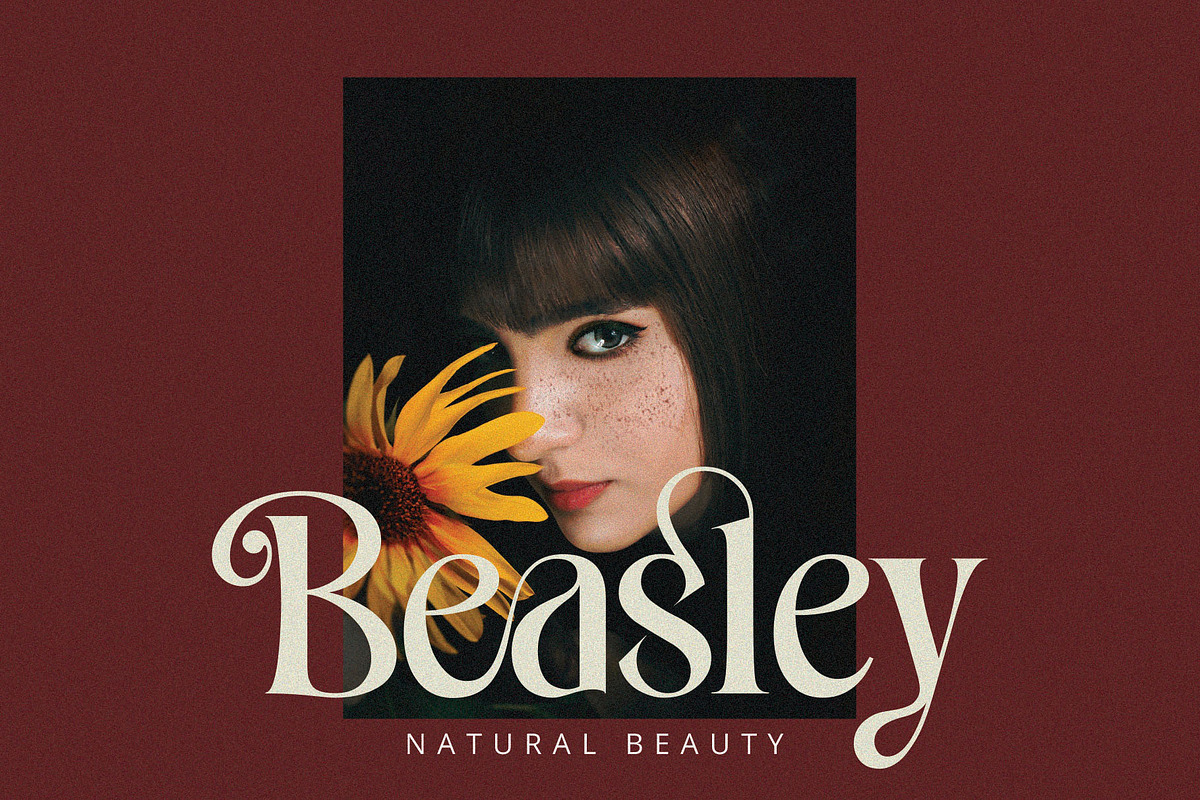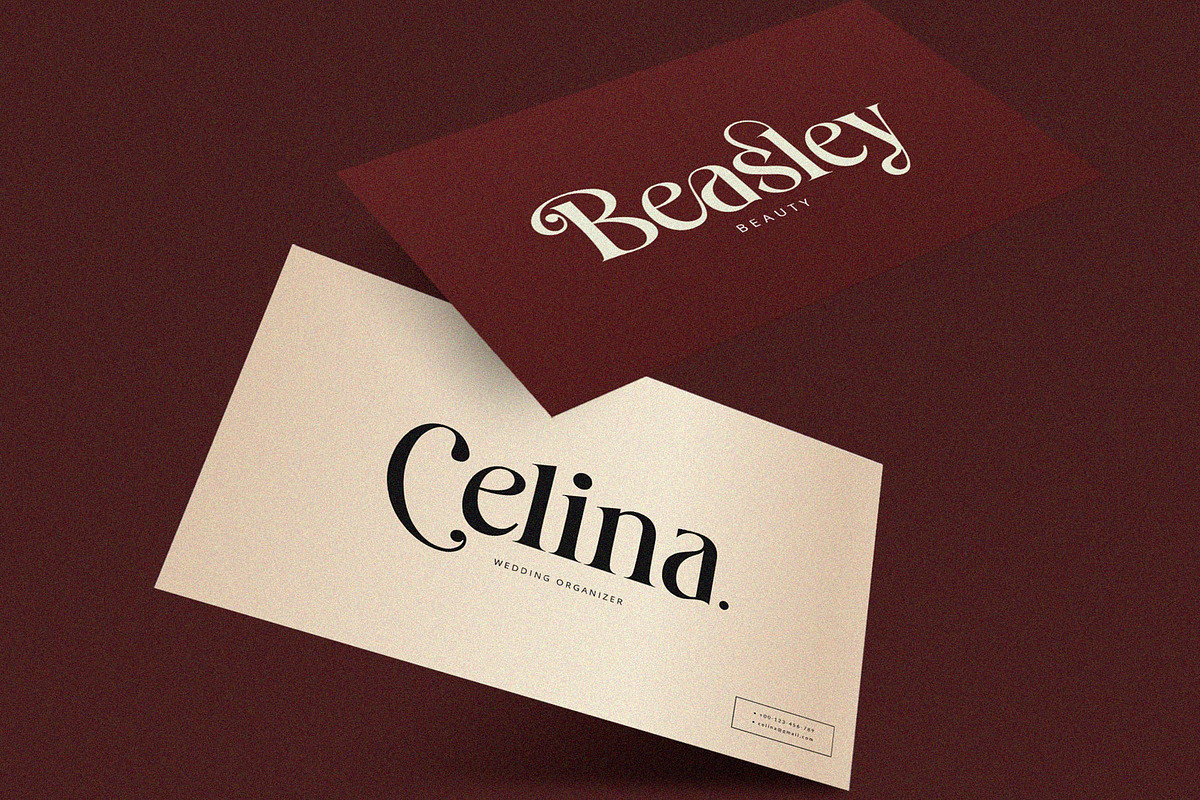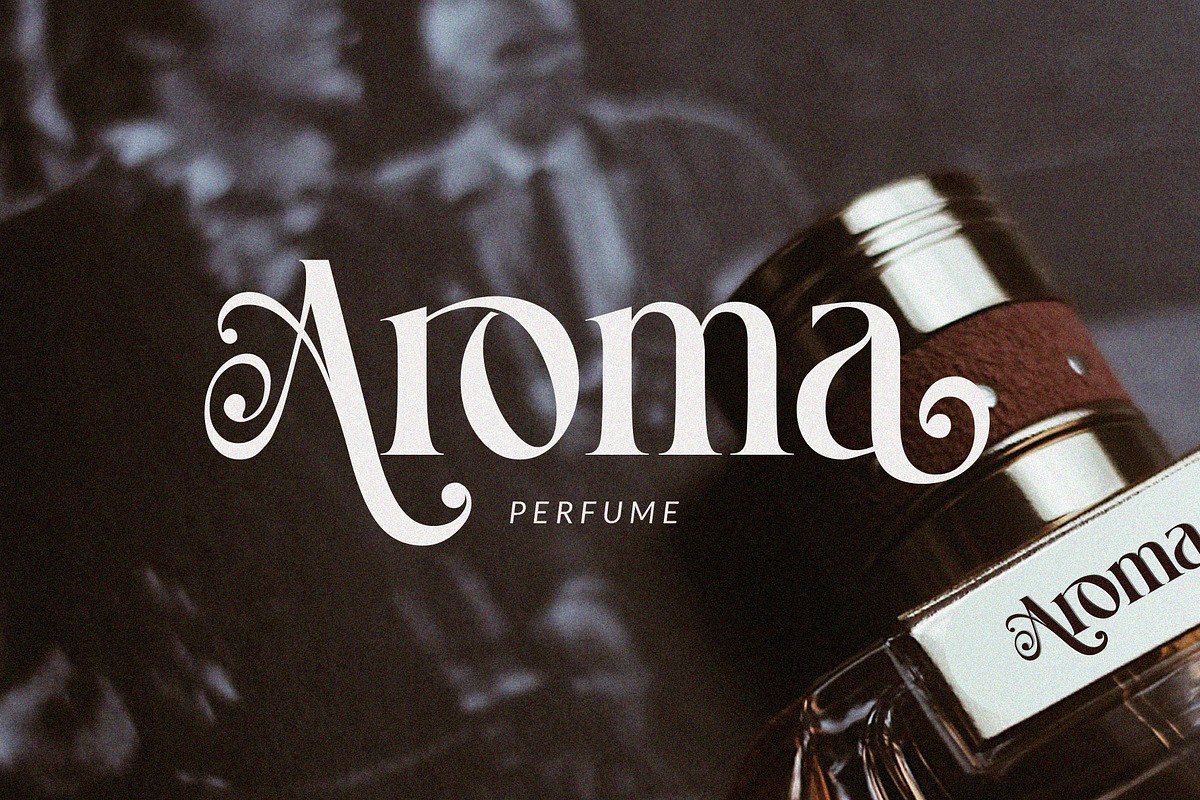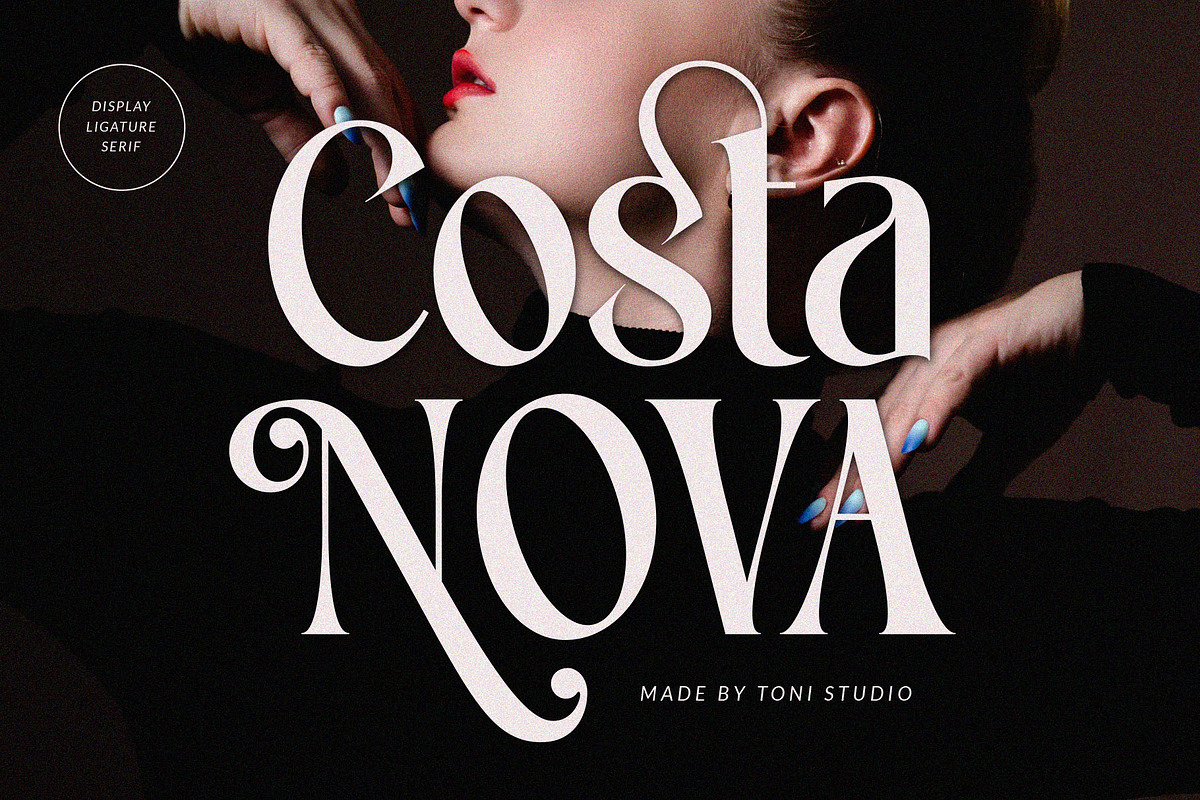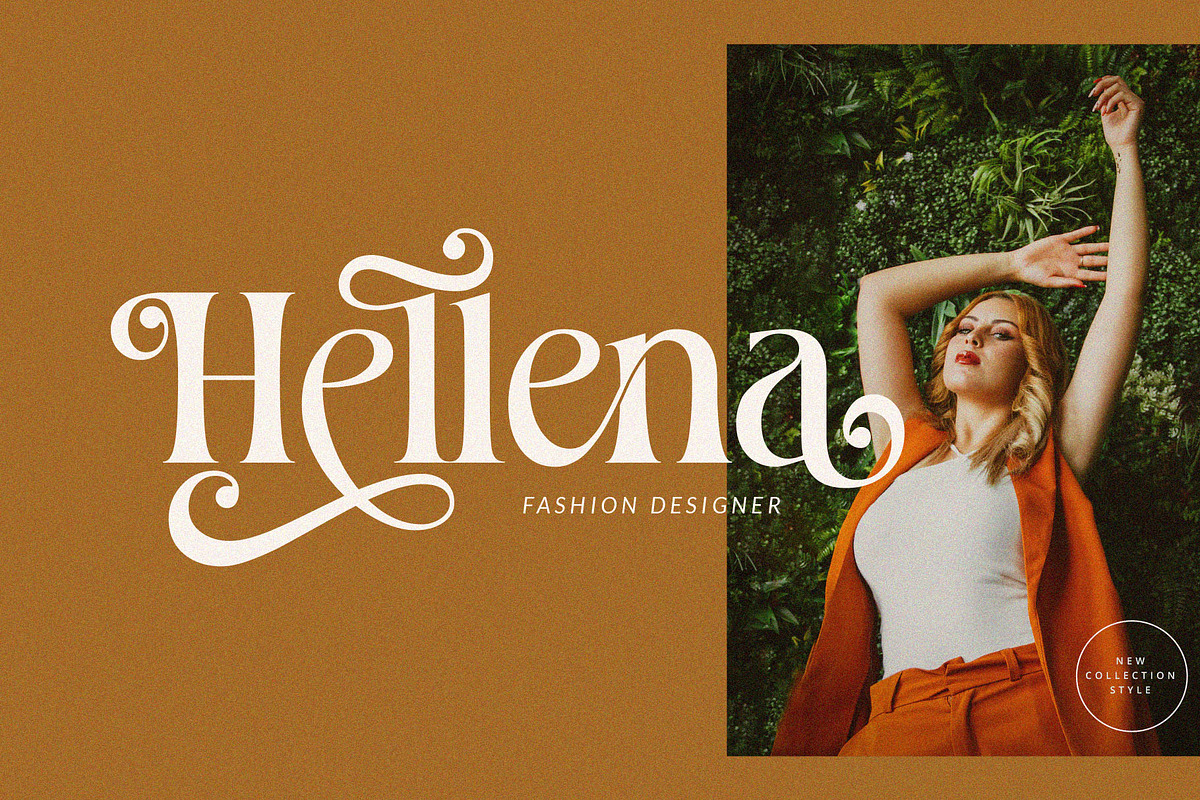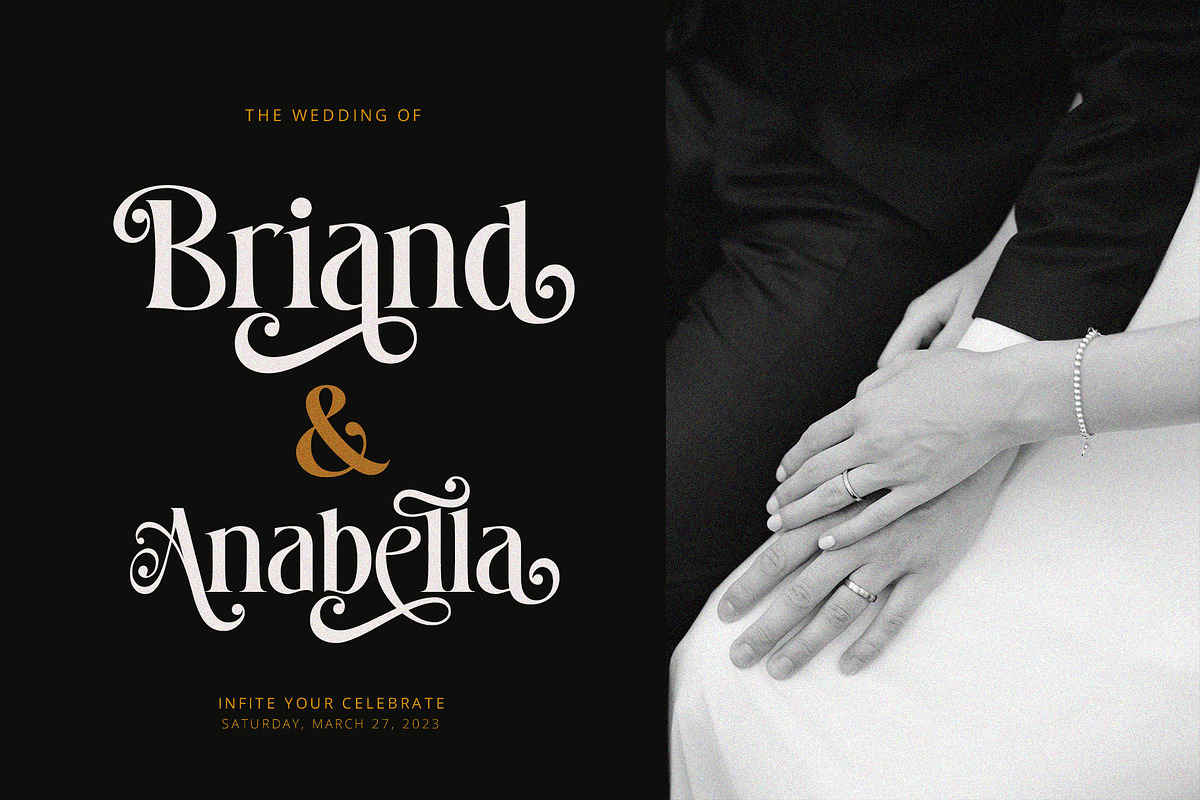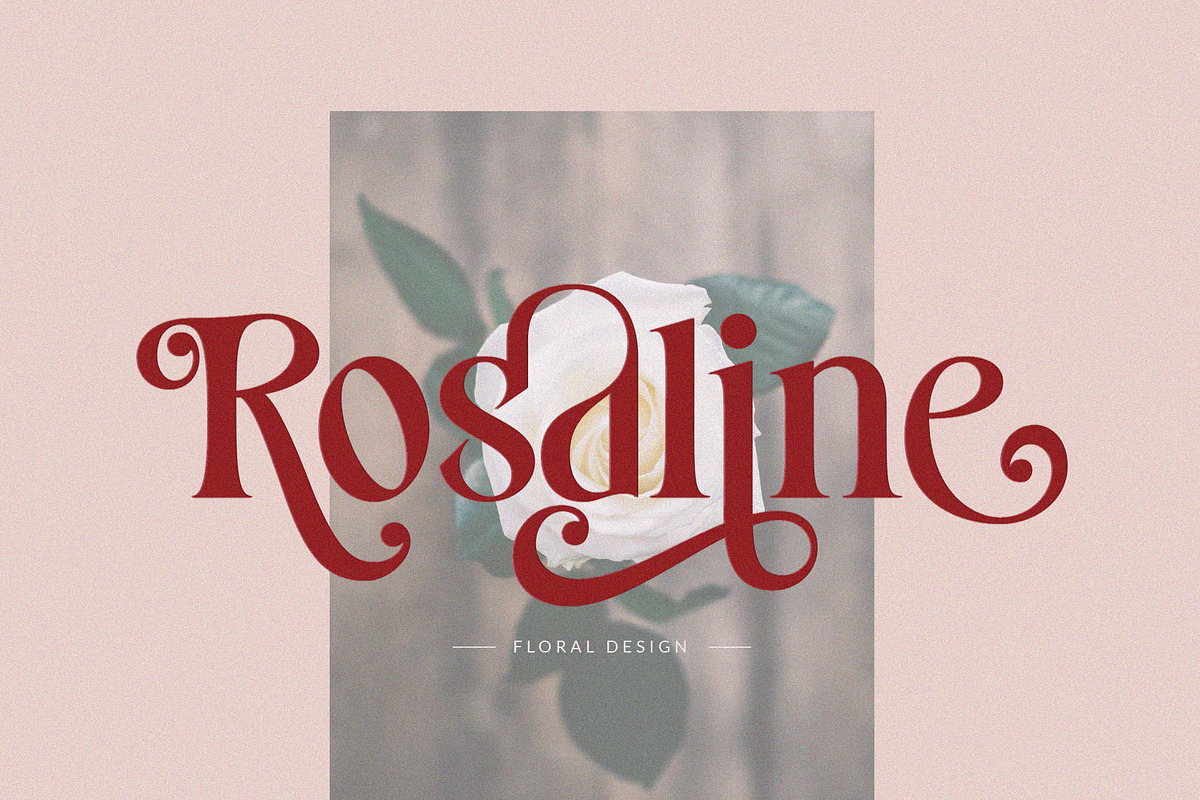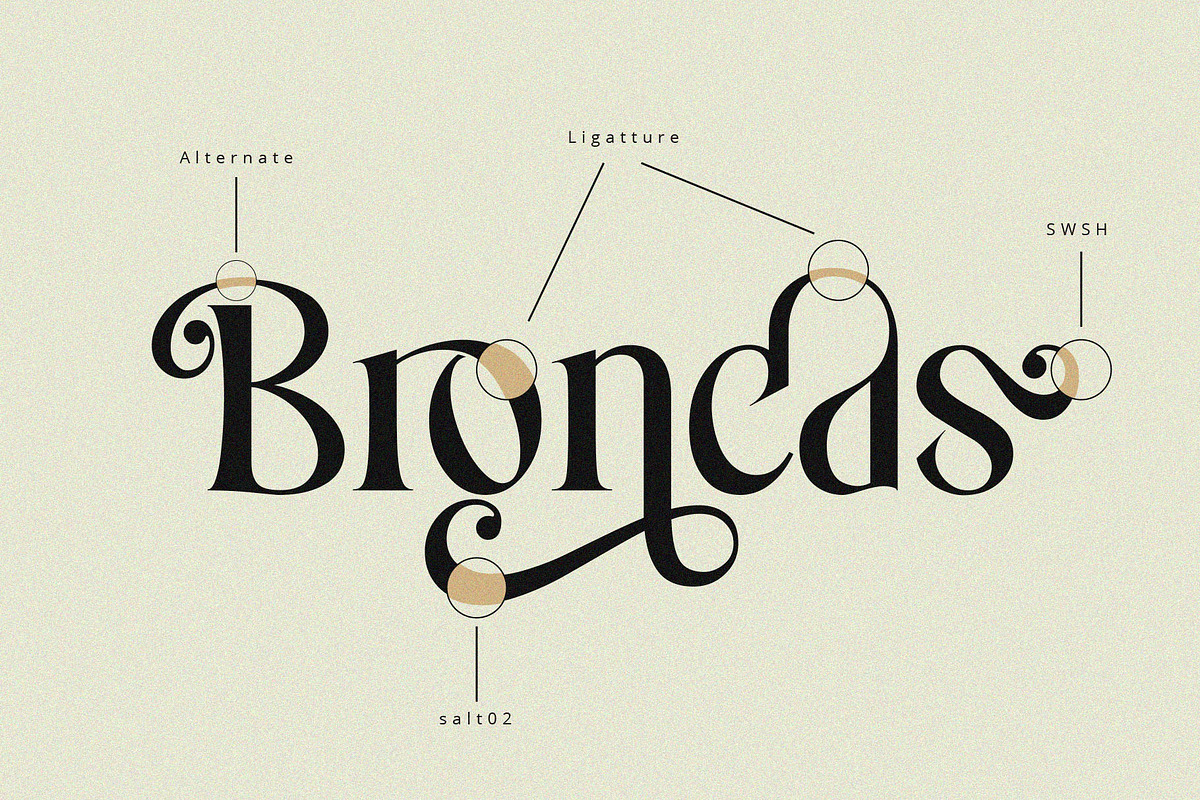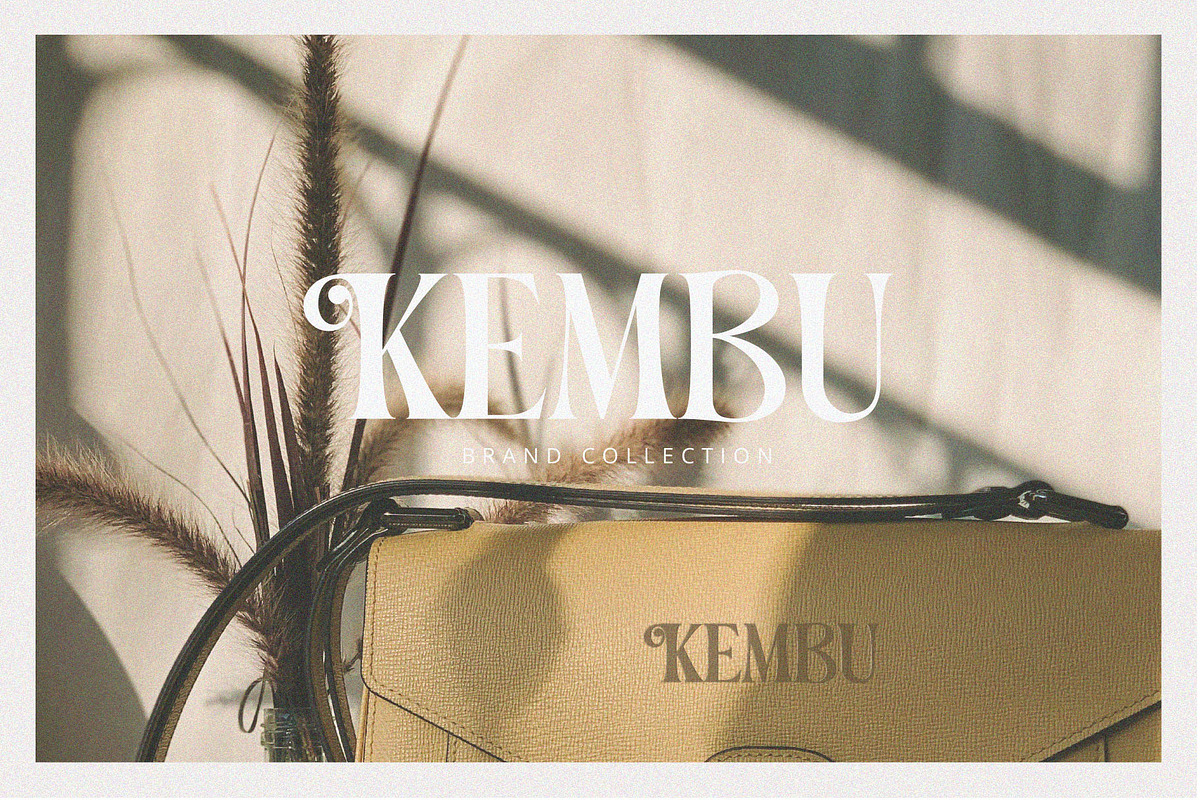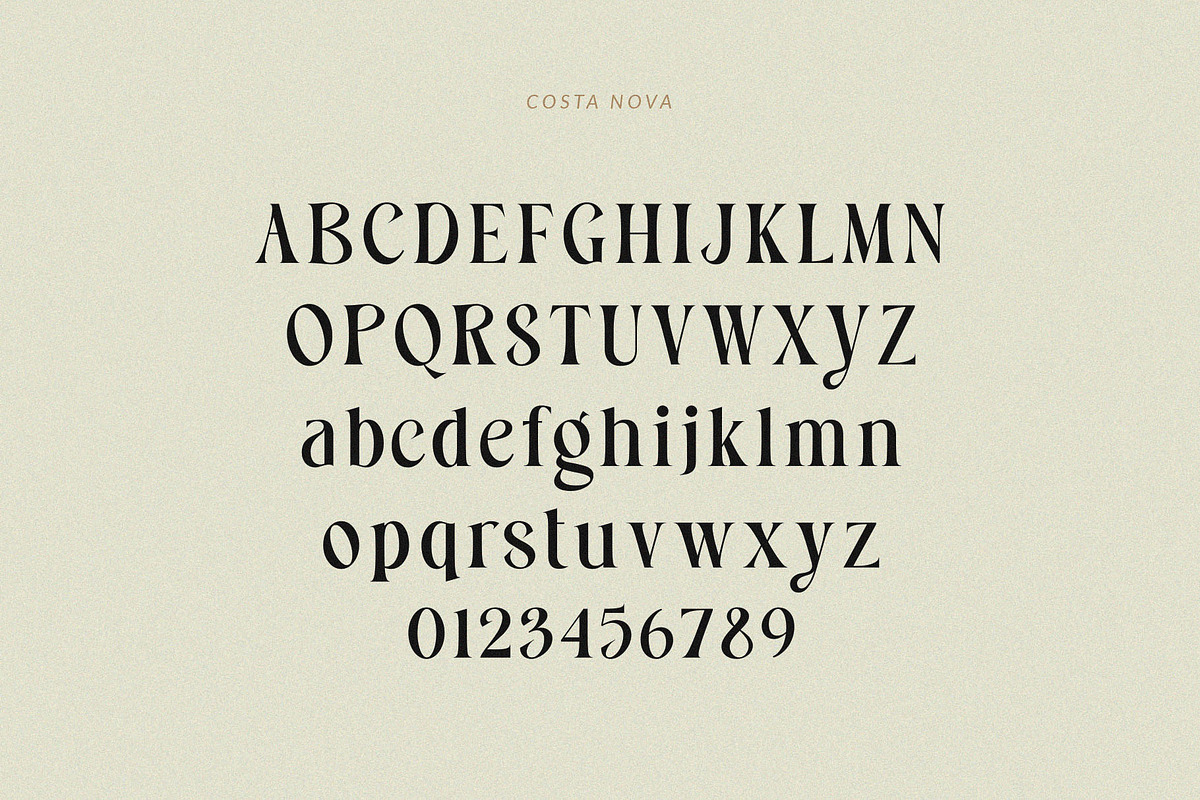
Costa Nova || display Ligature serif
Start a good day for a new font! present to you Costa Nova - Display ligature Serif Font is a stylish font that has a modern and elegant look. This font is packed with unique alternatives and binders to create amazing logos, business cards, wedding invitations, quotes, posts, blog posts. branding projects, magazine imagery, and more.